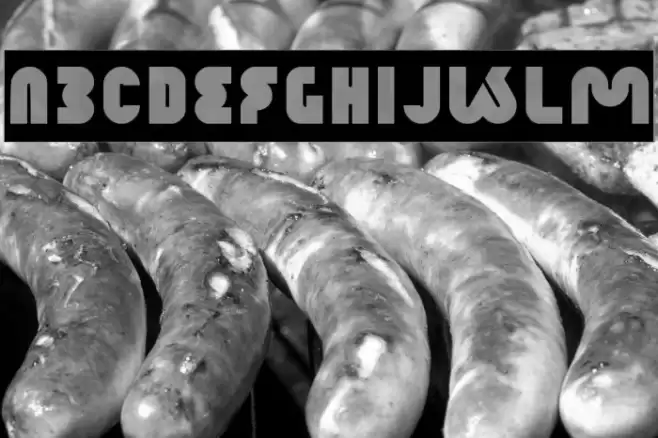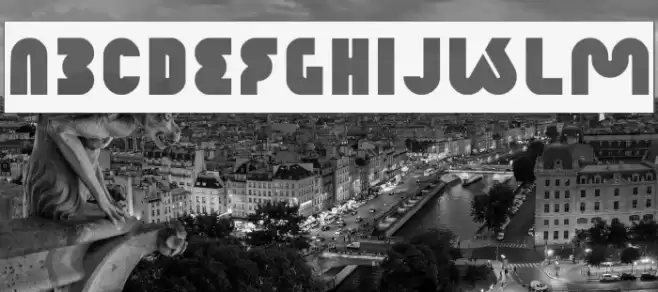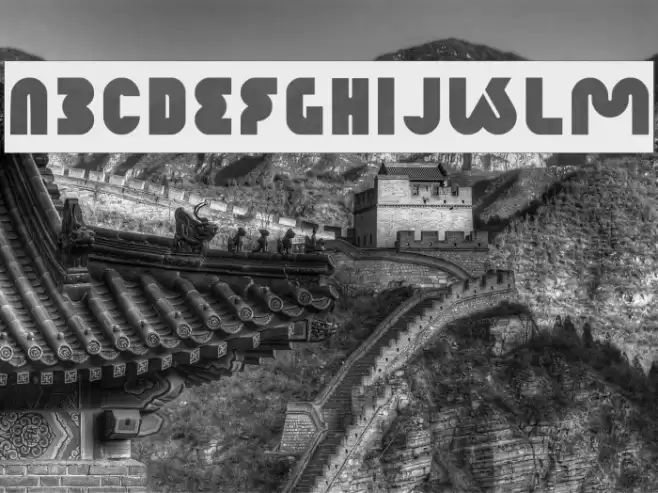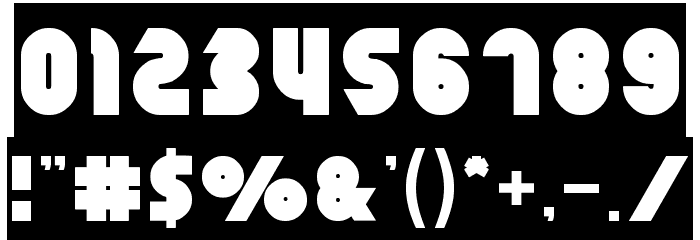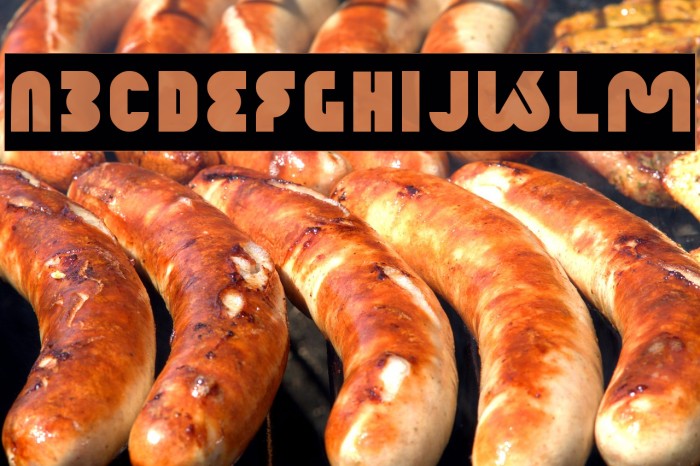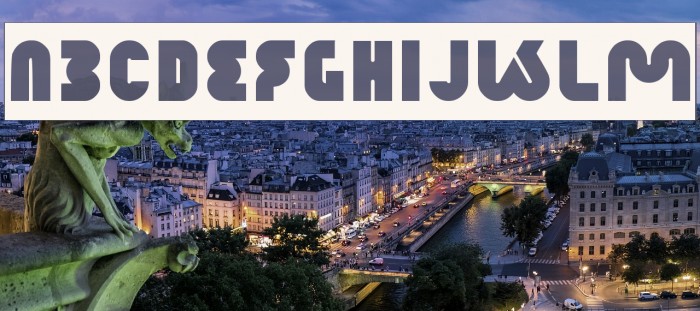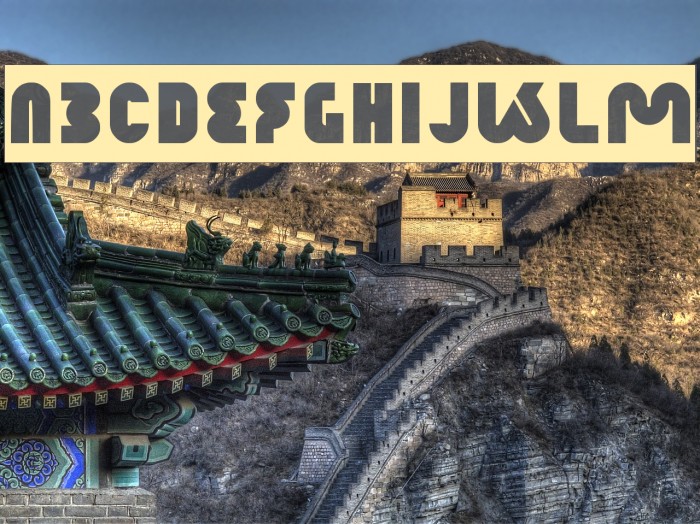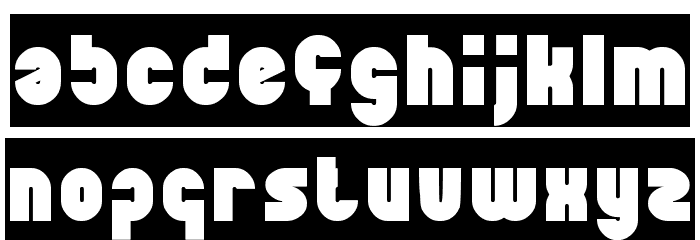
XTREME BIKE-Inverse Font
XTREME BIKE-Inverse Description
This font features a bold and striking design with a modern, geometric style. The characters are constructed with thick, uniform strokes, creating a strong visual impact. The uppercase and lowercase letters maintain a consistent width, contributing to a cohesive appearance. The font includes a full set of numerals and a variety of special characters, making it versatile for different design needs. Its unique style is characterized by sharp angles and rounded edges, giving it a futuristic and dynamic feel. The high contrast between the thick strokes and the negative space enhances readability and adds to its bold aesthetic.
A bold, geometric font with high contrast and a modern, dynamic style from Uncategorized fonts.
- Proposed Projects: Ideal for branding, posters, headlines, and any project requiring a strong visual impact.